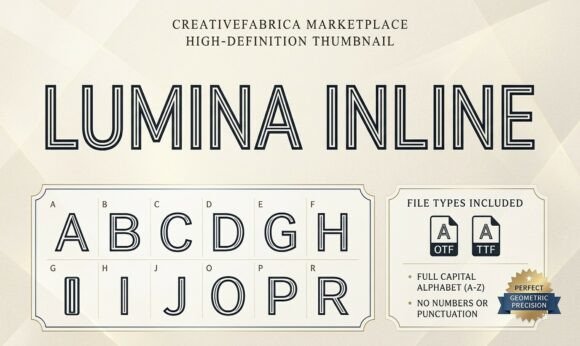
Introduction to Lumina Inline Font
Welcome to Lumina Inline.
✨ Give your designs a sleek, modern edge with Lumina Inline This is a clean, geometric display font featuring a distinct double-line (outline/inline) style.
Key Features of Lumina Inline Font
Why Choose Lumina Inline Font?
Lumina Inline Font offers exceptional quality and versatility, making it a valuable addition to your design toolkit. Whether you’re creating for personal projects or commercial use, Lumina Inline Font delivers professional results.